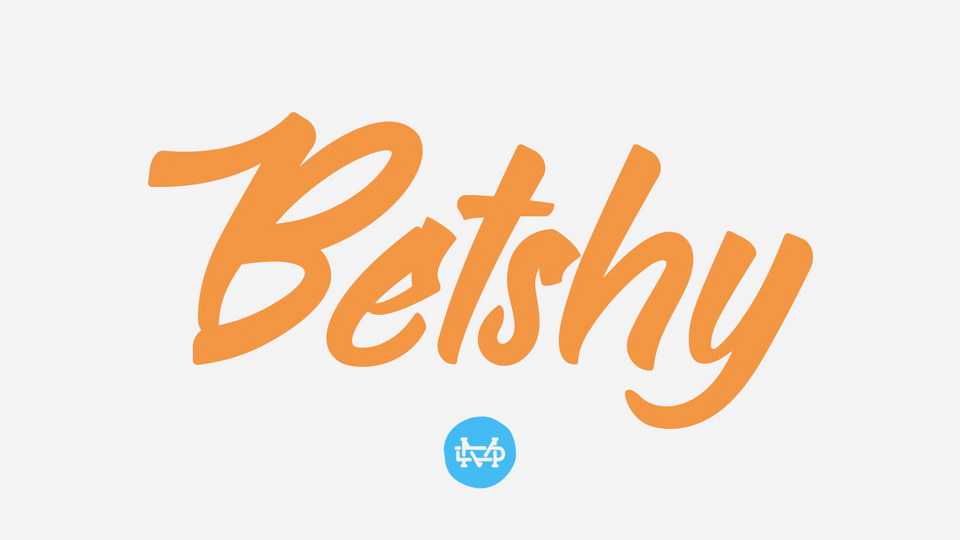
Download Betshy script, an eye-catching hand lettered font with a bold twist. Betshy font will add a dynamic feel to any design project with this one-of-a-kind font!
Designer: TypeClassHeroes